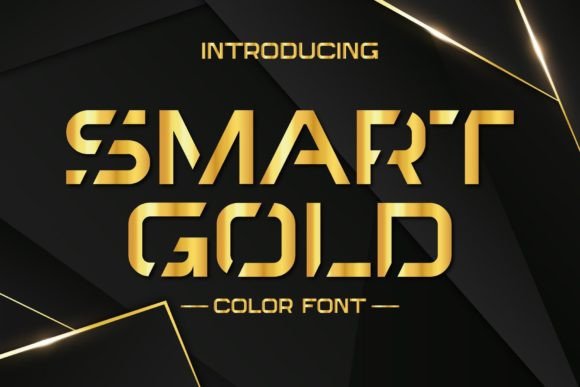
Smart Gold: A Luxurious Display Font for Bold Visuals
There's a moment in every design project where you need a headline to do more than just sit there. You need it to command attention, to shimmer with intent, and to communicate a sense of premium quality before a single word is read. This is where typography stops being a utility and becomes a strategic asset. Enter a typeface designed to deliver that exact impact—a modern, golden display font that merges contemporary style with an unmistakable air of luxury.
Understanding the Visual Power of a Golden Typeface
Smart Gold isn't your average font file. It's a color font, specifically an OpenType-SVG format, which means the golden gradient and metallic sheen are embedded directly into the letterforms. This technology allows for complex color effects that traditional single-color fonts simply can't achieve. The result is text that appears polished, dimensional, and inherently valuable. The design itself balances clean, modern lines with the opulence of its golden hue, making it versatile enough for both sleek digital interfaces and rich print applications.
This type of creative font excels as a display font. Its primary strength is in headlines, titles, and short, impactful blocks of text where visual flair is paramount. Think of it as the typographic equivalent of a signature piece of jewelry for your design—it's meant to be seen and to elevate the entire composition.
Strategic Applications: Where a Luxury Font Truly Shines
The true test of any premium font is its real-world utility. Where does a golden display font like this find its place? The applications are surprisingly broad, spanning both digital and physical realms.
Practical Integration: Making It Work in Your Workflow
Adopting a new design asset is about more than just liking its look; it's about how it functions within your existing toolkit. Here’s how to approach integrating a specialized typeface like this one effectively.
Font Pairing is Key. A bold display font needs a partner. Pair Smart Gold with a clean, highly readable sans serif font or a simple serif font for body text. For example, its modern lines complement geometric sans serifs, while its elegance can be balanced with a classic serif for editorial layouts. Avoid pairing it with other ornate script fonts or handwritten fonts, which can create visual chaos.
Readability First. Because it's a color font with gradients, it's crucial to test its readability against different backgrounds. Ensure there is sufficient contrast. It typically works best on dark, solid, or subtly textured backgrounds where the golden color can pop without competing. Always preview at the final size to ensure clarity.
Beyond Aesthetics: The Role of Typography in Communication
Choosing a font like Smart Gold is a deliberate communication choice. It’s a tool for visual consistency across a campaign, helping to build brand recognition. When your audience sees that distinctive golden shimmer in your social graphics, on your website, and in your emails, it creates a cohesive and memorable brand experience.
It also impacts professional presentation. A well-chosen, high-quality font signals attention to detail and a commitment to quality. It tells your audience, whether they're customers, readers, or event attendees, that you value their experience and the impression you make.
In a landscape saturated with generic sans serif fonts and overused script fonts, a thoughtfully designed color font offers a chance to stand out. It’s not about being flashy for the sake of it; it’s about using the full spectrum of design tools to communicate your message with clarity, style, and impact. By strategically applying a typeface with this level of visual character, you transform simple text into a powerful element of your story.